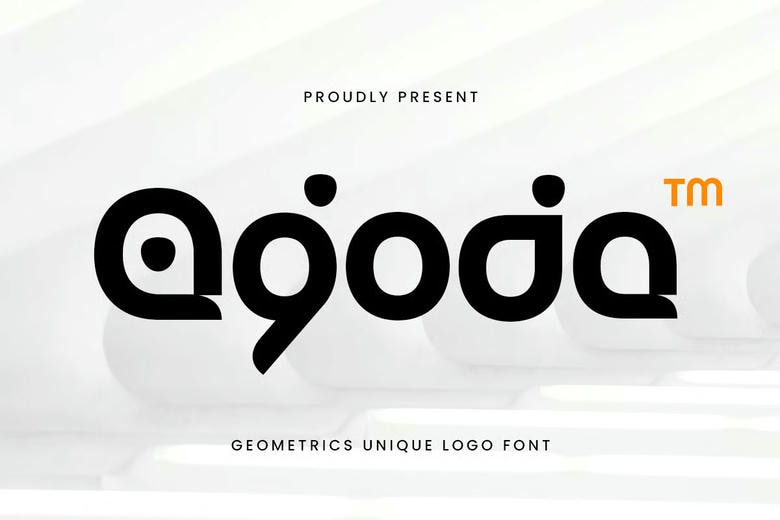
Agoda Font
Agoda Font is a geometrics technology logo font designed to provide a clean and organized and immediate recognizable brand voice. Having a perfect geometry with unique character shapes, the typeface produces an urban appearance that is intelligent, efficient, and design-oriented, which is a great fit to modern identities.
Created as a logo design and brand system, AGODA designs well on wordmarks, packaging, web headers, user interface design, social media graphics, and contemporary editorial designs. It is built geometrically to ensure typography is sharp and professional, with the distinct details of your branding being distinct without compromising clarity.
With a smooth, geometric base, AGODA will give your startup logo a sharp look, a corporate identity renewal, or a reduced product brand that will look, feel, and be remembered as modern and sleek whether printed in print or on the screen.
Agoda Logo Font